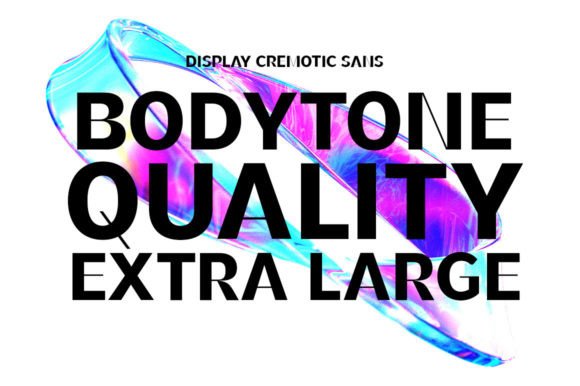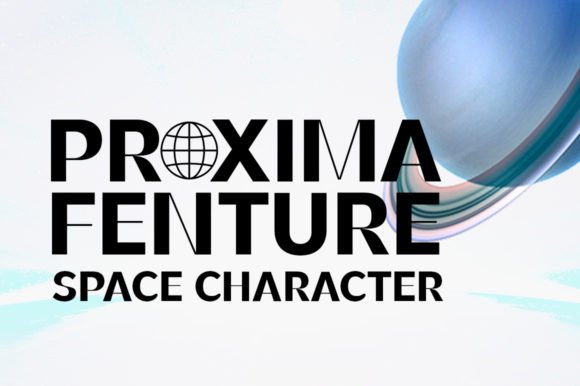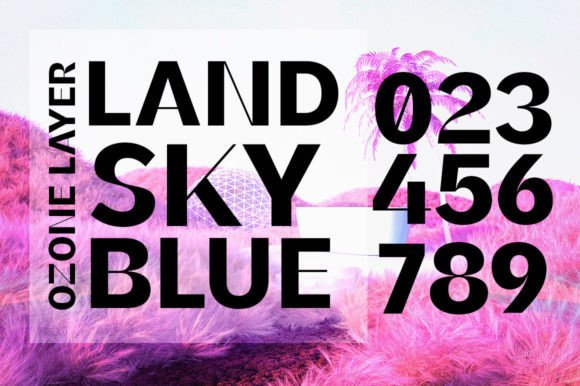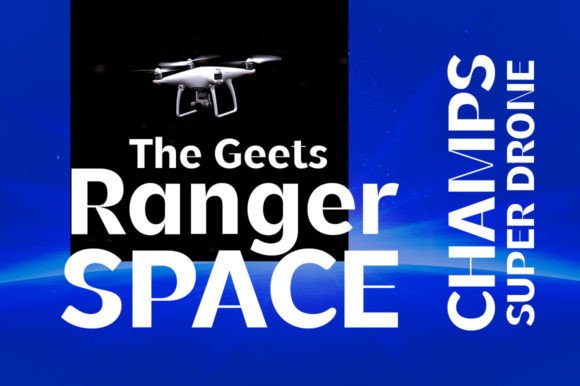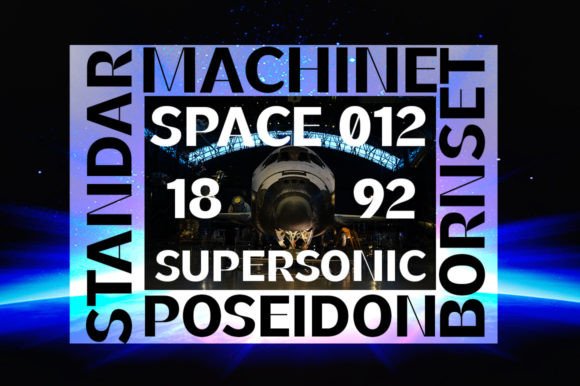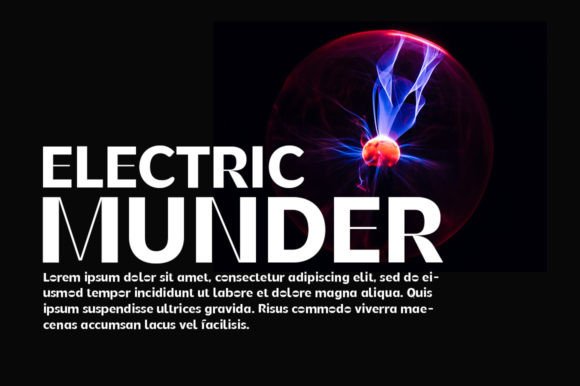
Cremotic Font: Elevate Your Design with Stylish Sans Serif Elegance
In the realm of typography, fonts play a pivotal role in defining the aesthetic and tone of any design project. Whether you’re a seasoned designer or a crafty DIY enthusiast, finding the perfect font can be a daunting task. However, if you’re looking for a stylish sans serif font that exudes modernity and sophistication, look no further than Cremotic Font. This stunning typeface is designed to turn heads with its extreme cuts, sharp angles, and interactive straps, making it an ideal choice for a wide range of design applications.
What is Cremotic Font?
Cremotic Font is a meticulously crafted sans serif font that boasts a unique blend of style and functionality. Its extreme cuts and sharp angles give it a distinctive edge, setting it apart from more traditional fonts. The addition of interactive straps adds a touch of creativity and playfulness, allowing designers to experiment with various visual effects. This font is not just a means of communication; it’s a statement piece that can elevate your design to new heights.
Key Features of Cremotic Font
- Stylish Sans Serif Design: Cremotic Font features a clean and modern sans serif design that is both elegant and versatile.
- Extreme Cuts and Sharp Angles: The font’s unique cuts and angles add a dynamic and edgy feel to your designs.
- Interactive Straps: The straps offer a creative way to add visual interest and interactivity to your typography.
- High Versatility: Suitable for logos, banners, cards, web design, product packaging, and more, Cremotic Font is a versatile choice for any design project.
Cremotic Font is designed to cater to the needs of both professional designers and crafty enthusiasts. For designers, it offers a fresh and modern typeface that can be used to create stunning visual identities for brands. For crafters, it provides an opportunity to add a professional touch to DIY projects, such as handmade cards, posters, and product labels. The font’s ease of use and flexibility make it accessible to users of all skill levels.
Applications of Cremotic Font
The possibilities are endless with Cremotic Font. Here are some of the many ways you can use this versatile font:
- Logo Design: Create memorable and impactful logos that stand out.
- Web Design: Enhance your website’s typography and user experience.
- Print Design: From business cards to posters, elevate your print materials with stylish typography.
- Product Packaging: Add a touch of sophistication to your product labels and packaging.
- Social Media Graphics: Make your social media posts and stories more engaging with custom typography.
Tips for Using Cremotic Font
To make the most of Cremotic Font, consider the following tips:
- Experiment with Straps: Play around with the interactive straps to add movement and interest to your designs.
- Mix and Match: Combine Cremotic Font with other fonts to create unique typography combinations.
- Adjust and Customize: Don’t be afraid to adjust the font size, color, and style to fit your design needs.
Cremotic Font is a game-changer for designers and crafters looking to add a touch of style and sophistication to their projects. With its unique design elements, versatility, and ease of use, it’s an excellent addition to any design toolkit. Whether you’re working on a professional project or a personal DIY endeavor, Cremotic Font is sure to inspire creativity and elevate your design to new heights.